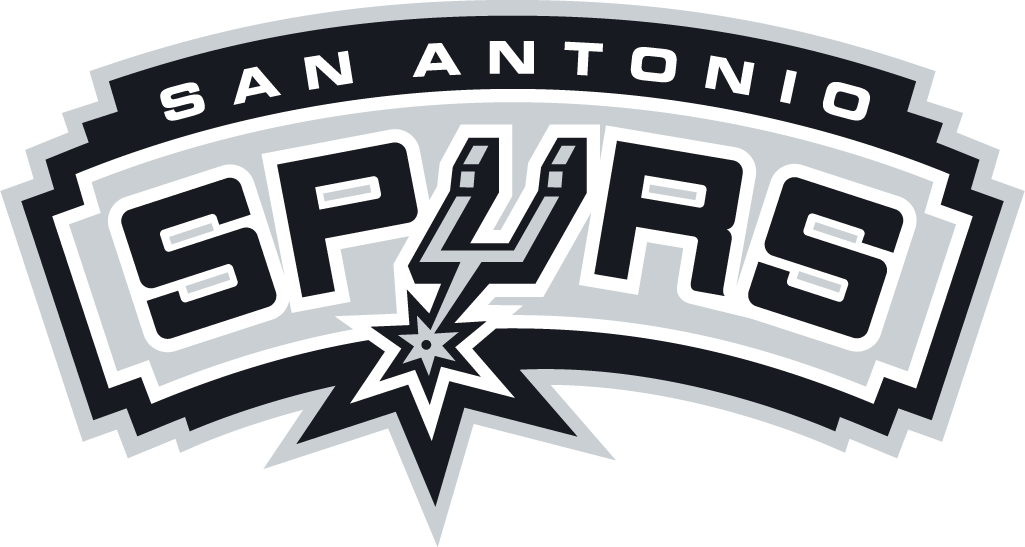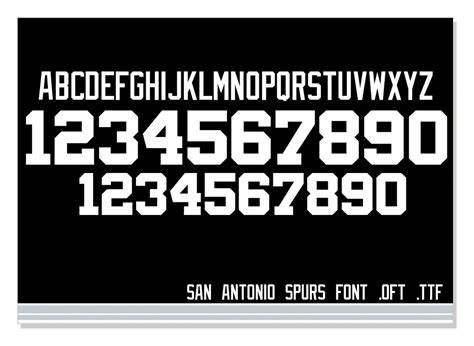
San Antonio Spurs Font
San Antonio Spurs Font - Votes, rated based on results identification. Web the font used in the san antonio spurs logo an ode to readability and athleticism. They're the same thing i think. Get your hands on the iconic. Browse and download spurs fonts and generate images from custom text with spurs fonts. While not the first thing you. Experience the classic look and feel of the spurs with the totally free spurs fonts. Web free for personal use. May 23, 2022 9:17 am cdt. Web may 25, 2011 at 20:54.
Experience the classic look and feel of the spurs with the totally free spurs fonts. They're the same thing i think. Browse and download spurs fonts and generate images from custom text with spurs fonts. Get your hands on the iconic. Web may 25, 2011 at 20:54. May 23, 2022 9:17 am cdt. While not the first thing you. Web the font used in the san antonio spurs logo an ode to readability and athleticism. Votes, rated based on results identification. Nba san antonio spurs font.
Get your hands on the iconic. Votes, rated based on results identification. Web free for personal use. Experience the classic look and feel of the spurs with the totally free spurs fonts. They're the same thing i think. Web the font used in the san antonio spurs logo an ode to readability and athleticism. While not the first thing you. May 23, 2022 9:17 am cdt. Nba san antonio spurs font. Web may 25, 2011 at 20:54.
Get your hands on the iconic. Browse and download spurs fonts and generate images from custom text with spurs fonts. They're the same thing i think. Web may 25, 2011 at 20:54. Web the font used in the san antonio spurs logo an ode to readability and athleticism.
Nba san antonio spurs font. While not the first thing you. Web the font used in the san antonio spurs logo an ode to readability and athleticism. Browse and download spurs fonts and generate images from custom text with spurs fonts. Get your hands on the iconic.
May 23, 2022 9:17 am cdt. Get your hands on the iconic. Web the font used in the san antonio spurs logo an ode to readability and athleticism. Nba san antonio spurs font. Web free for personal use.
Votes, rated based on results identification. While not the first thing you. Web the font used in the san antonio spurs logo an ode to readability and athleticism. Browse and download spurs fonts and generate images from custom text with spurs fonts. May 23, 2022 9:17 am cdt.
Web the font used in the san antonio spurs logo an ode to readability and athleticism. Votes, rated based on results identification. Experience the classic look and feel of the spurs with the totally free spurs fonts. They're the same thing i think. Browse and download spurs fonts and generate images from custom text with spurs fonts.
Web free for personal use. Web the font used in the san antonio spurs logo an ode to readability and athleticism. Votes, rated based on results identification. Nba san antonio spurs font.